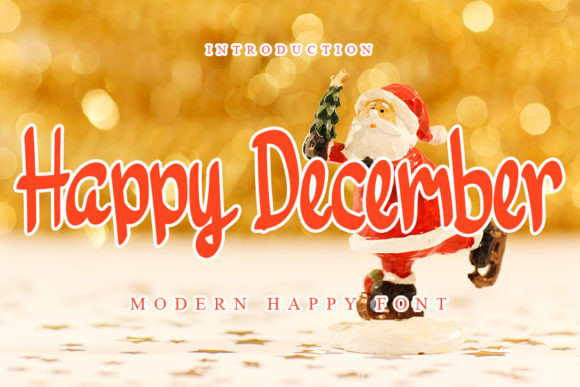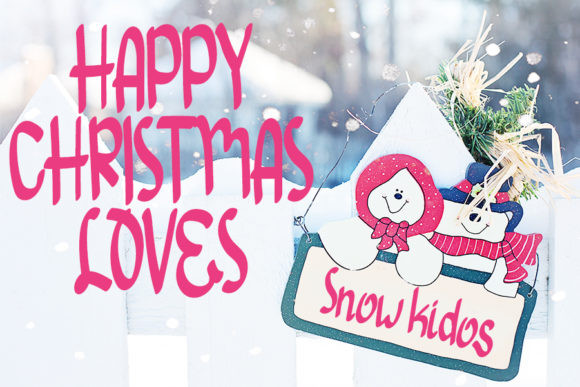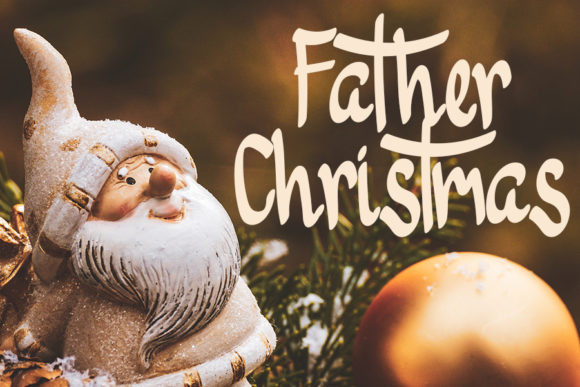
Happy December Font
Happy December is a sweet and round lettered handwritten font. Dainty and joyful, this font will be ideal for writing wedding invitations, cards or any other design that may need a romantic, personalized touch!